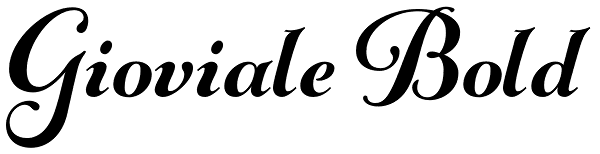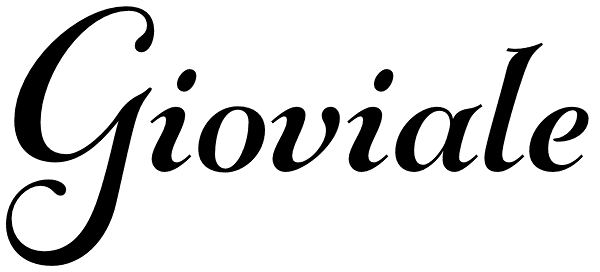
Gioviale
Graphic designers with a lust for lettering are constantly seeking scripts balanced neatly on the sweet spot suited for exuberant editorial work and messages of cheer. Neither frivolous nor strict. My typeface, Gioviale, satisfies that need. Your...